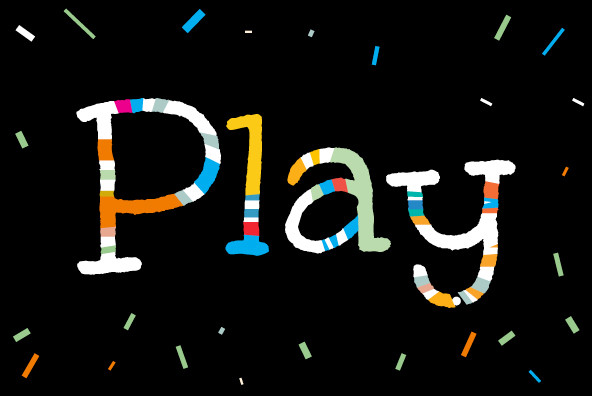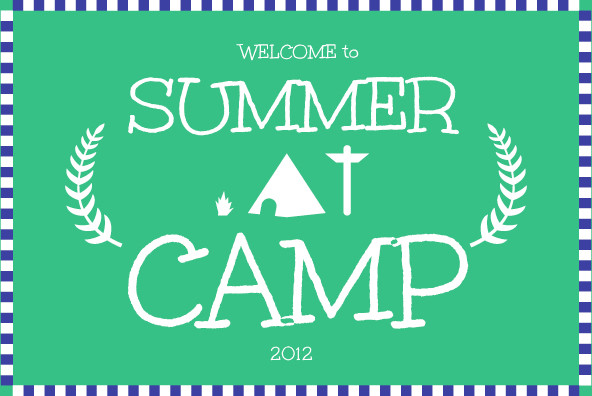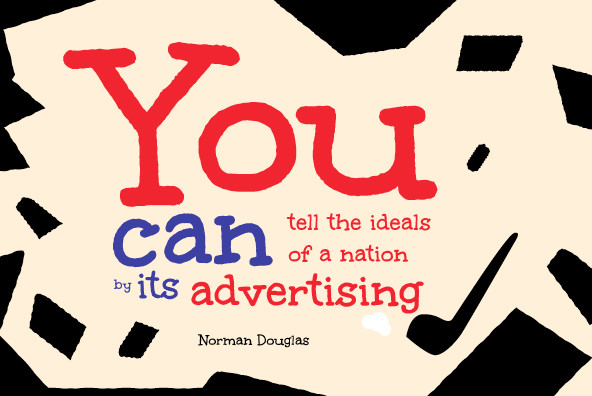
Unkempt Pro Family
Foundry: Neapolitan
Font designer Squid may be a bit disorderly but that didn't keep him from hand-lettering this off-kilter gem just for you. Unkempt Pro is definitely different than your traditional regimented font but, it’s hardly dirty! In fact, you can download it in a nifty little package that’s never been touched by human hands. And it’s fun! Get it!
The Pro version has been expanded and enhanced with more characters, dynamic OpenType ligatures and more!